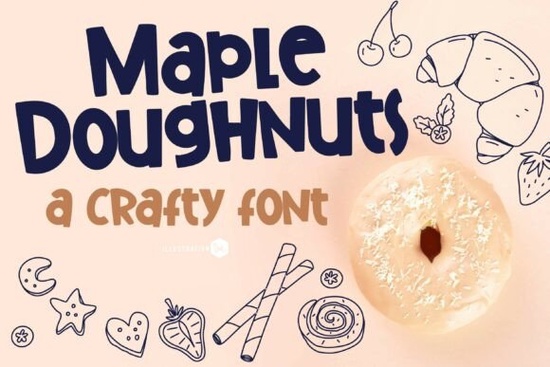
Looking for a chunky, hand-cut font that brings warmth and personality to your designs? The Maple Doughnuts Family Font is a heavy decorative sans-serif built for crafters, designers, and small business owners who want their typography to feel handmade and inviting. It's a solid pick for autumn projects, bakery branding, coffee shop materials, and cozy seasonal designs.
What Makes Maple Doughnuts Stand Out?
Most decorative fonts try too hard to look trendy. Maple Doughnuts takes a different approach. Its thick strokes and slightly irregular edges give it a hand-cut, artisan quality like something you'd see on a chalkboard at a neighborhood café. The letters are bold enough to read at a glance but still feel warm and approachable.
This is a sans-serif font, so there are no tiny decorative strokes on the letterforms. That keeps things clean while the heavy weight adds visual impact. It works well at larger sizes for headings, logos, and signage where you need personality without sacrificing readability.
Where Can You Use This Font?
Maple Doughnuts is versatile enough for a range of creative projects. Here are some ideas that work especially well:
- Coffee shop branding menus, loyalty cards, window decals
- Bakery and pastry labels product packaging, price tags, box designs
- Autumn and fall-themed crafts greeting cards, farmhouse signs, seasonal t-shirts
- Social media graphics Instagram headers, Pinterest pins, story templates
- Print-on-demand products mugs, tote bags, aprons, pillows
- Cafe and restaurant materials table tents, staff aprons, wall art
The heavy, rounded style pairs naturally with earthy color palettes think burnt orange, warm browns, cream, and deep red. If you're designing fall harvest graphics or Thanksgiving-themed crafts, this font fits right in.
How Does It Compare to Other Decorative Fonts?
Each of these serves a slightly different creative need. Maple Doughnuts is the one to reach for when you want that thick, handcrafted, artisan-and-authentic vibe.
Is It Easy to Use for Beginners?
A few practical tips:
- Size it large. Decorative display fonts like this are meant for headings and logos, not body text. Stick to 24pt and above for best results.
- Give it breathing room. Because the letterforms are chunky, increase letter spacing slightly if things feel cramped.
- Pair it with a simple font. Use a clean sans-serif or serif for body copy alongside Maple Doughnuts for headings. This creates contrast and keeps your layout easy to read.
- Test on your actual product. If you're doing print-on-demand, always preview how the font looks on the mockup before publishing.
Who Is This Font Best For?
Maple Doughnuts is ideal for:
- Small business owners running bakeries, coffee shops, or seasonal pop-ups who need cohesive branding materials.
- Craft sellers on Etsy creating SVG designs, sublimation prints, or personalized gifts.
- Social media managers looking for a friendly, eye-catching typeface for headers and quote graphics.
- DIY hobbyists making farmhouse signs, wall art, or custom apparel with cutting machines.
It's not the right fit for formal or corporate projects and that's okay. This font knows exactly what it is: a bold, warm, handcrafted display type that brings personality to the right kind of design.
Ask yourself these questions:
- ✅ Does my project call for a bold, decorative heading font rather than a subtle one?
- ✅ Am I working on something with a warm, cozy, or artisan theme?
- ✅ Do I need a font that works for print-on-demand, signage, or social media graphics?
- ✅ Will I pair it with a simpler secondary font for body text?